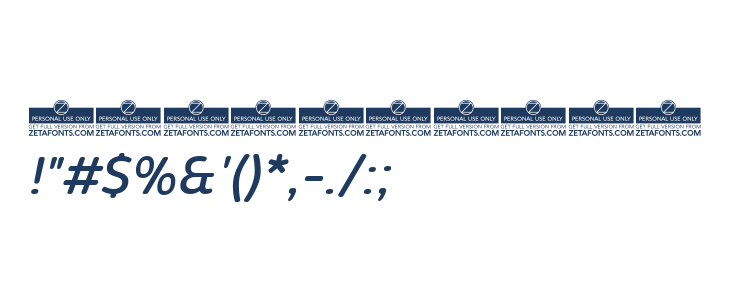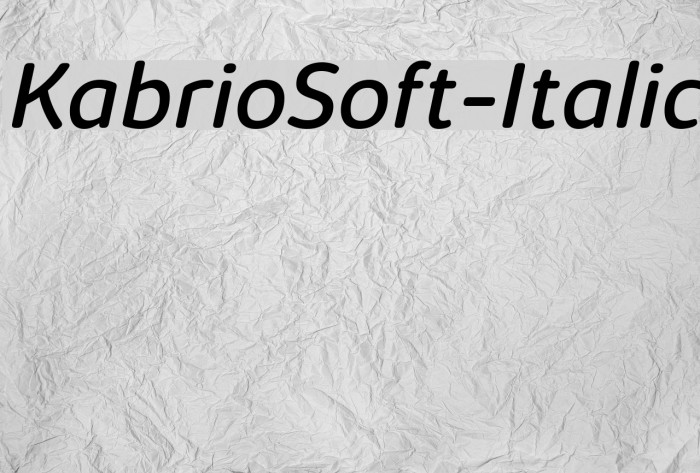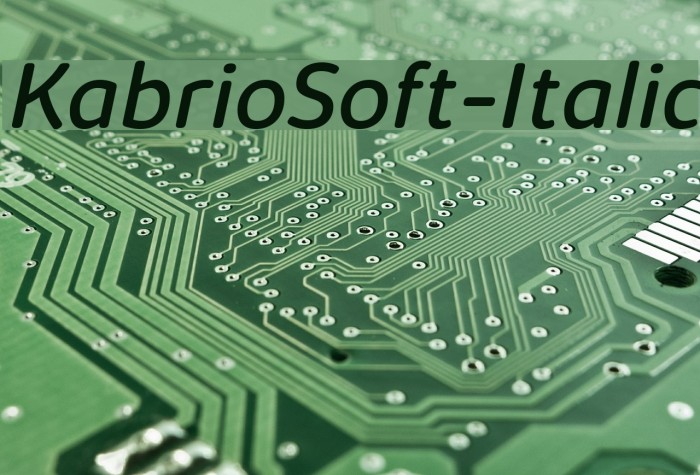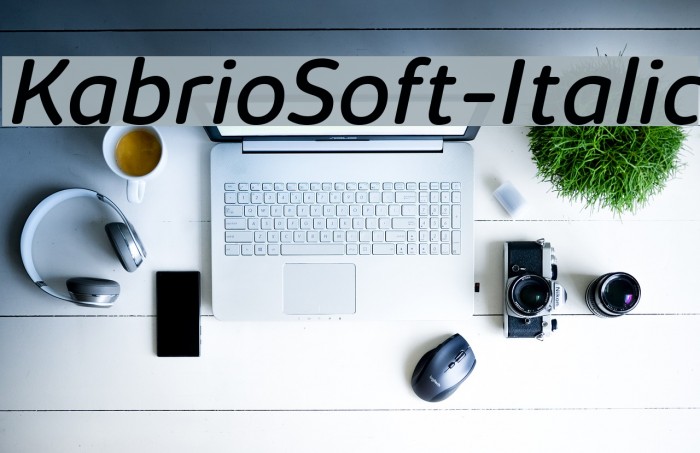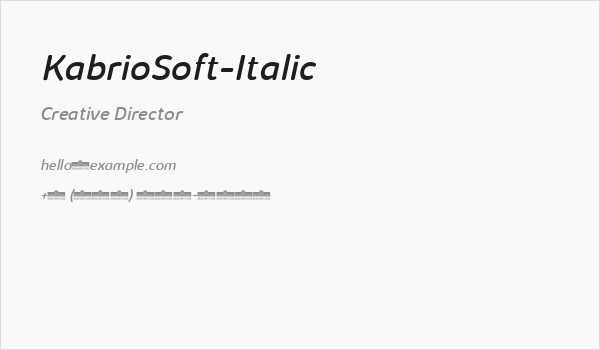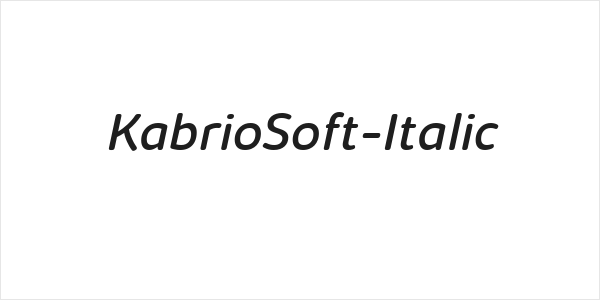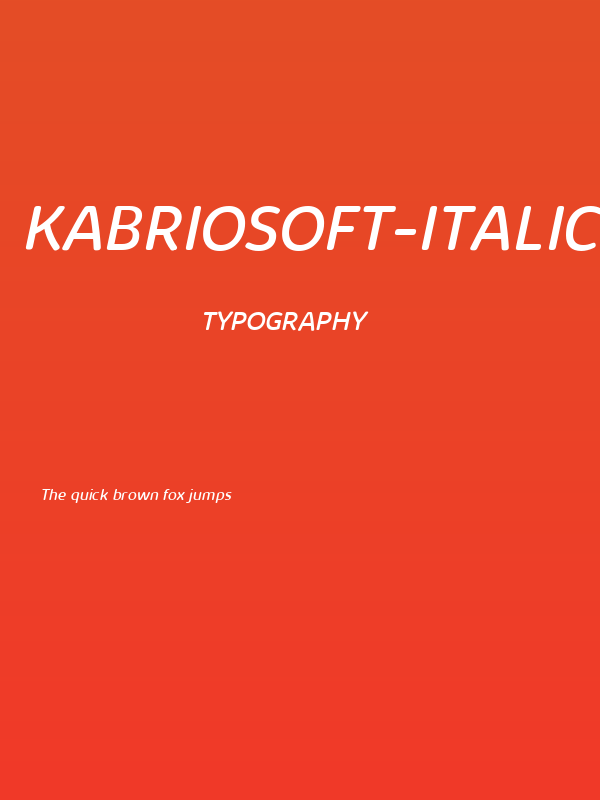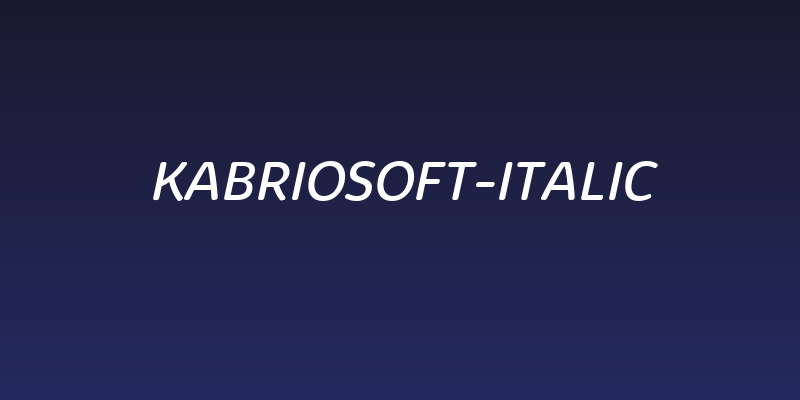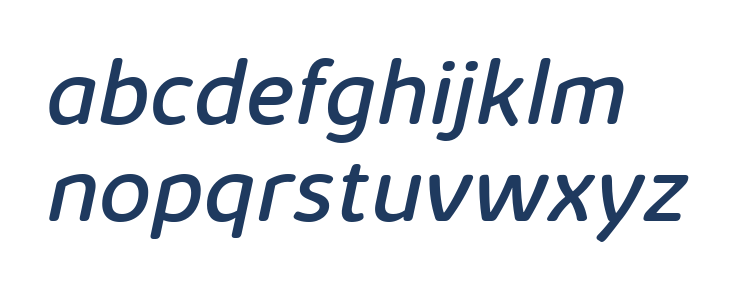
KabrioSoft-Italic Font
KabrioSoft-Italic Description
This font features a sleek and modern design with a slight italic slant, giving it a dynamic and fluid appearance. The characters are well-proportioned, with smooth curves and a clean finish. The uppercase letters are bold and assertive, while the lowercase letters maintain a friendly and approachable style. The numbers are clear and easy to read, making them suitable for various applications. Special characters are included, adding versatility to the font's usage. Overall, this font balances elegance and readability, making it ideal for both digital and print media.
| Proposed Projects | Ideal for branding, advertising, web design, and editorial projects. |